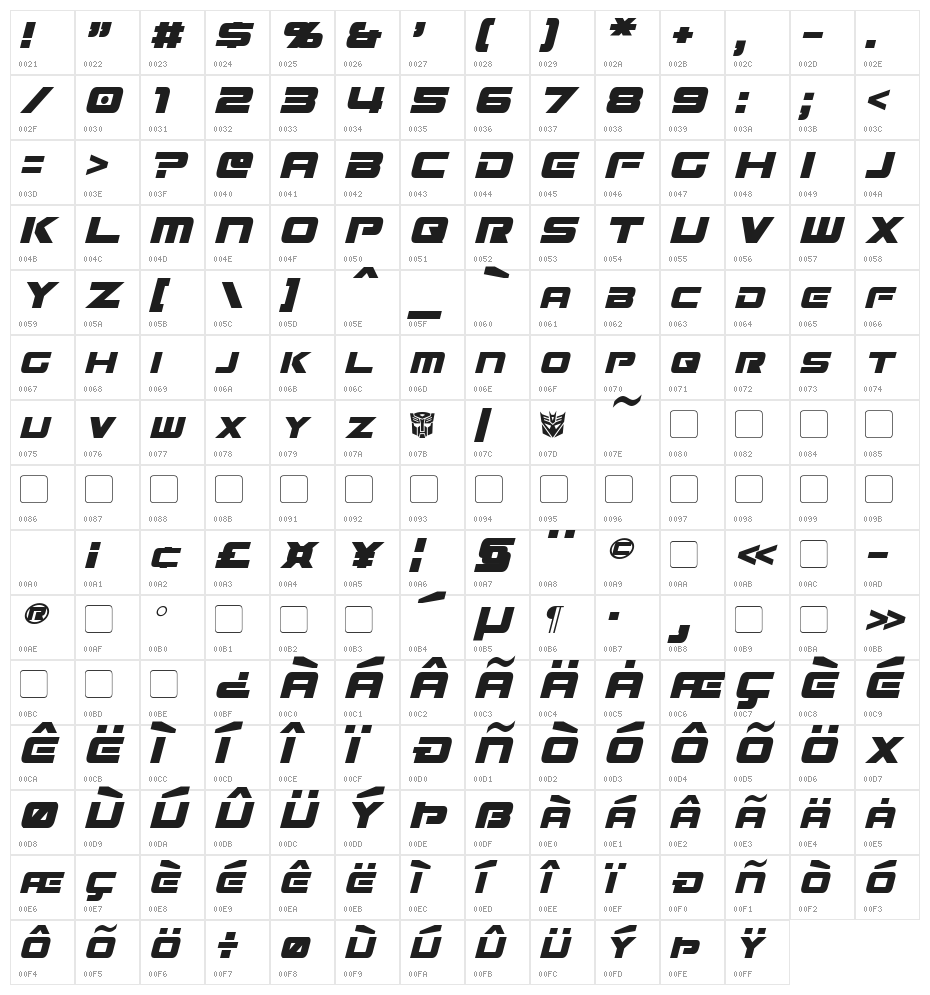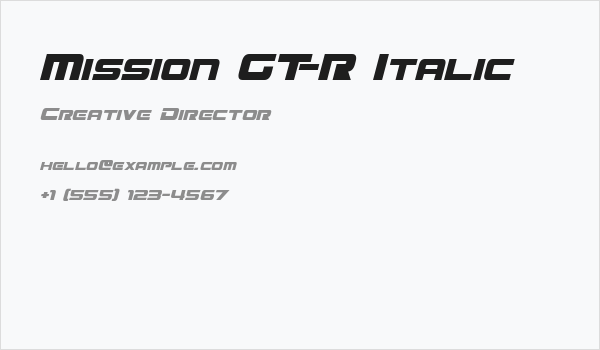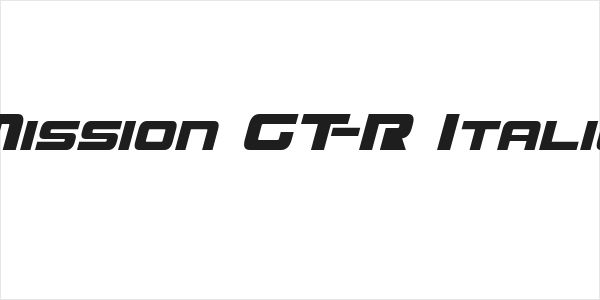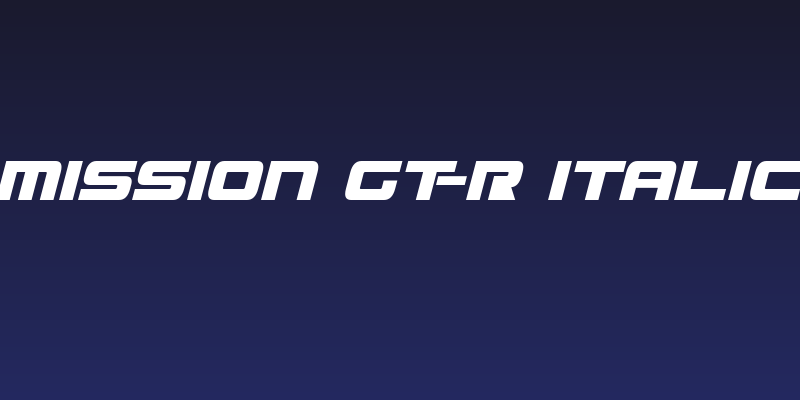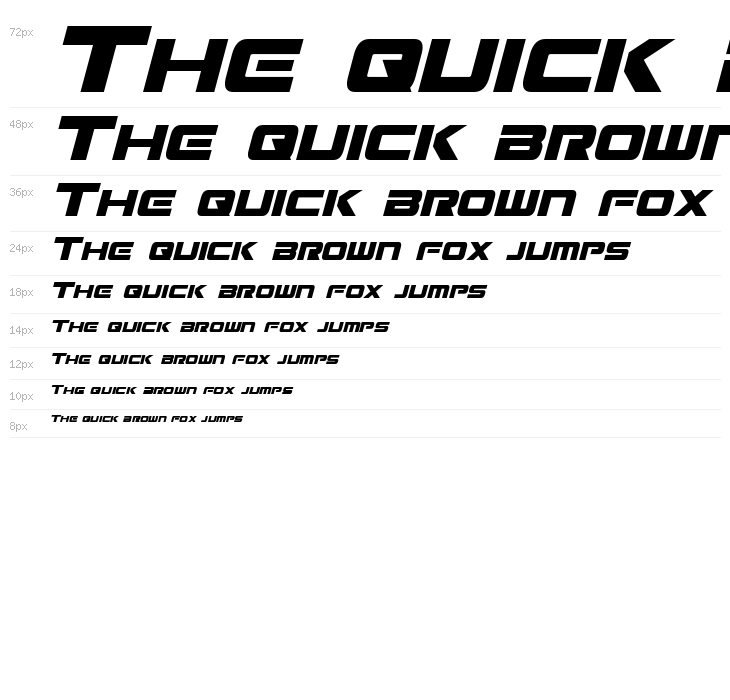
Mission GT-R Italic Font
Mission GT-R Italic Description
This font features a bold and dynamic style with a futuristic and sporty aesthetic. The characters are italicized, giving a sense of motion and speed. The strokes are thick and consistent, providing a strong visual impact. The angular cuts and sharp edges enhance its modern appeal, making it suitable for designs that require a sense of energy and forward movement. The uppercase and lowercase letters maintain a uniform appearance, while the numerals and special characters are designed to complement the overall style. This font is ideal for projects that aim to convey a sense of innovation and modernity.
| Proposed Projects | Ideal for sports branding, automotive designs, tech logos, and dynamic advertising. |